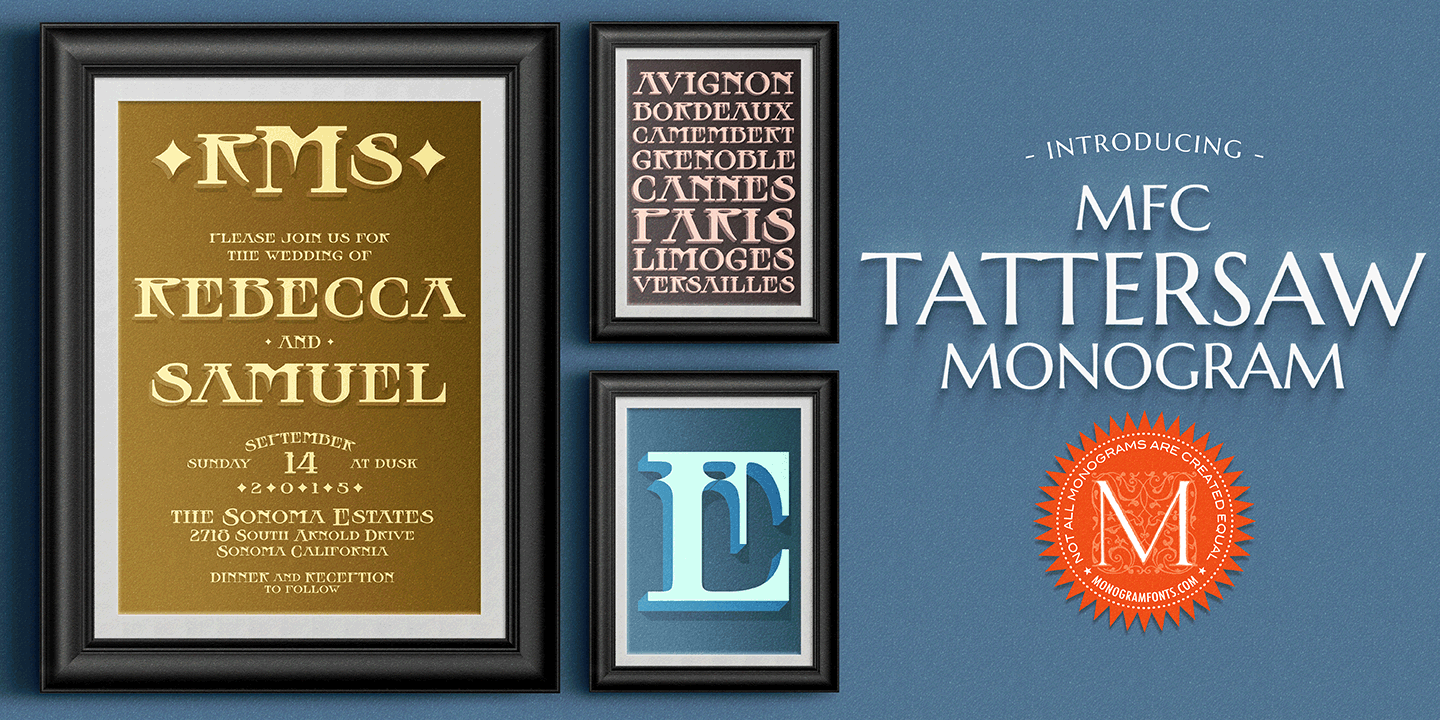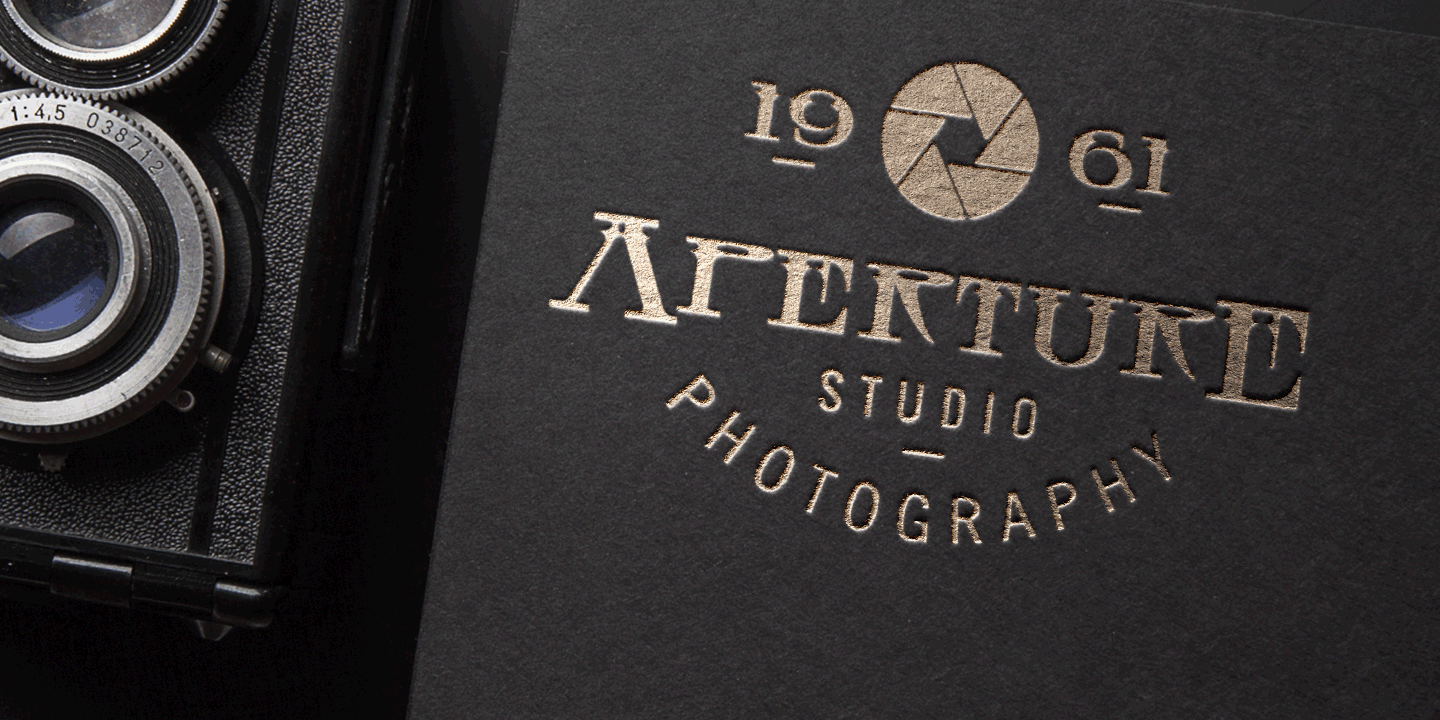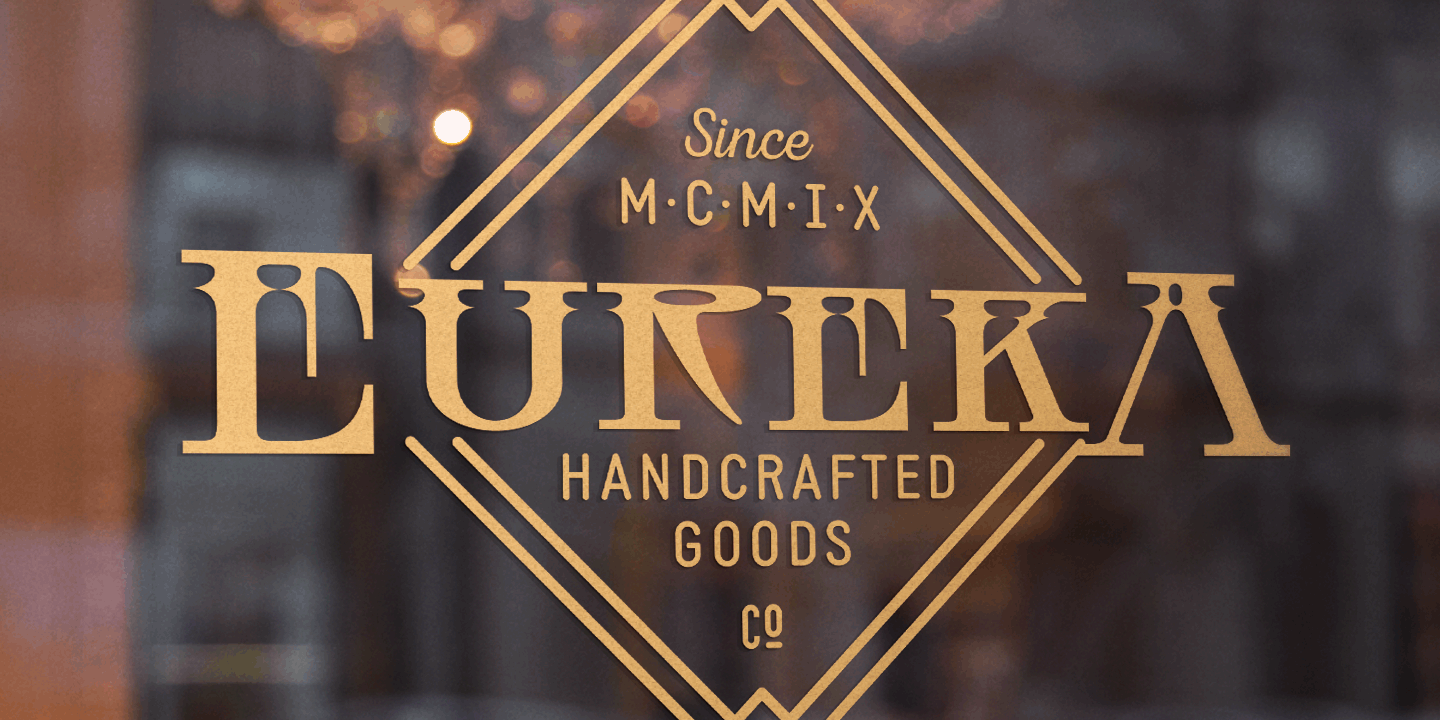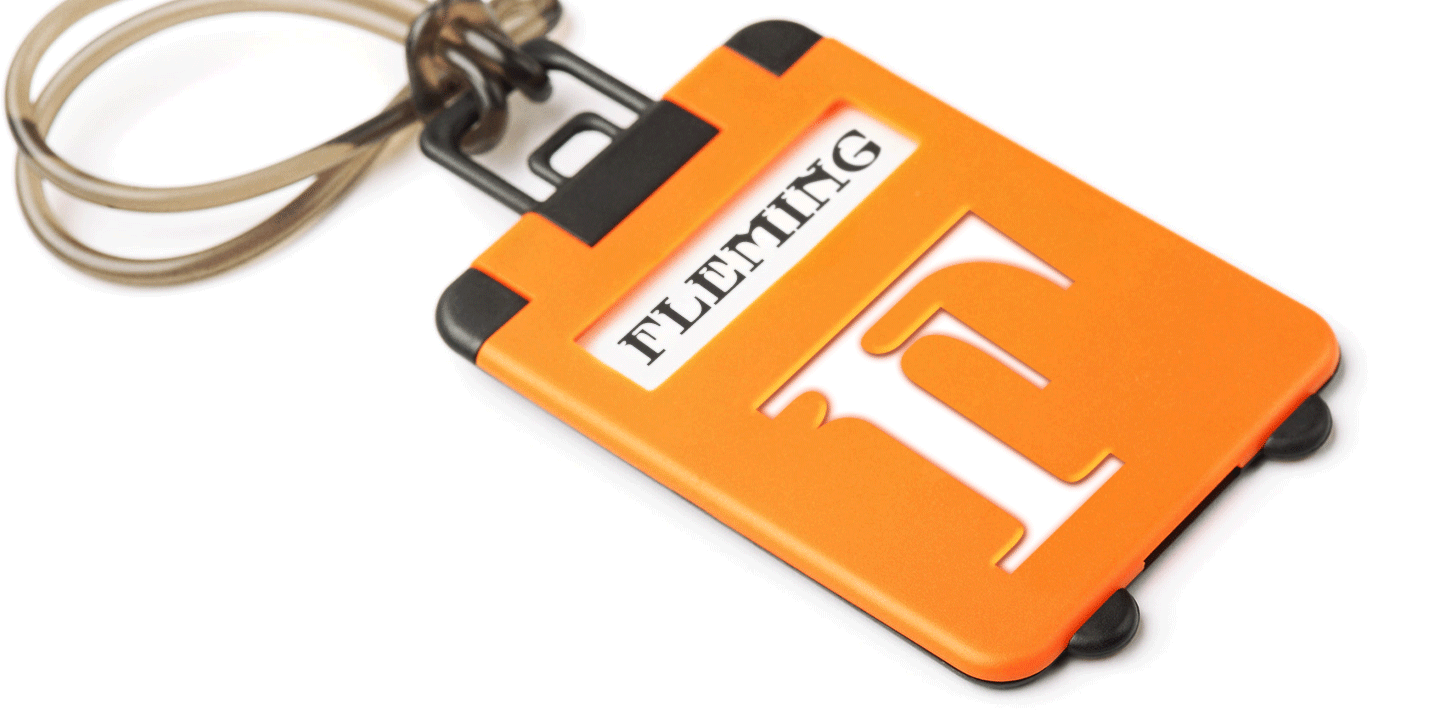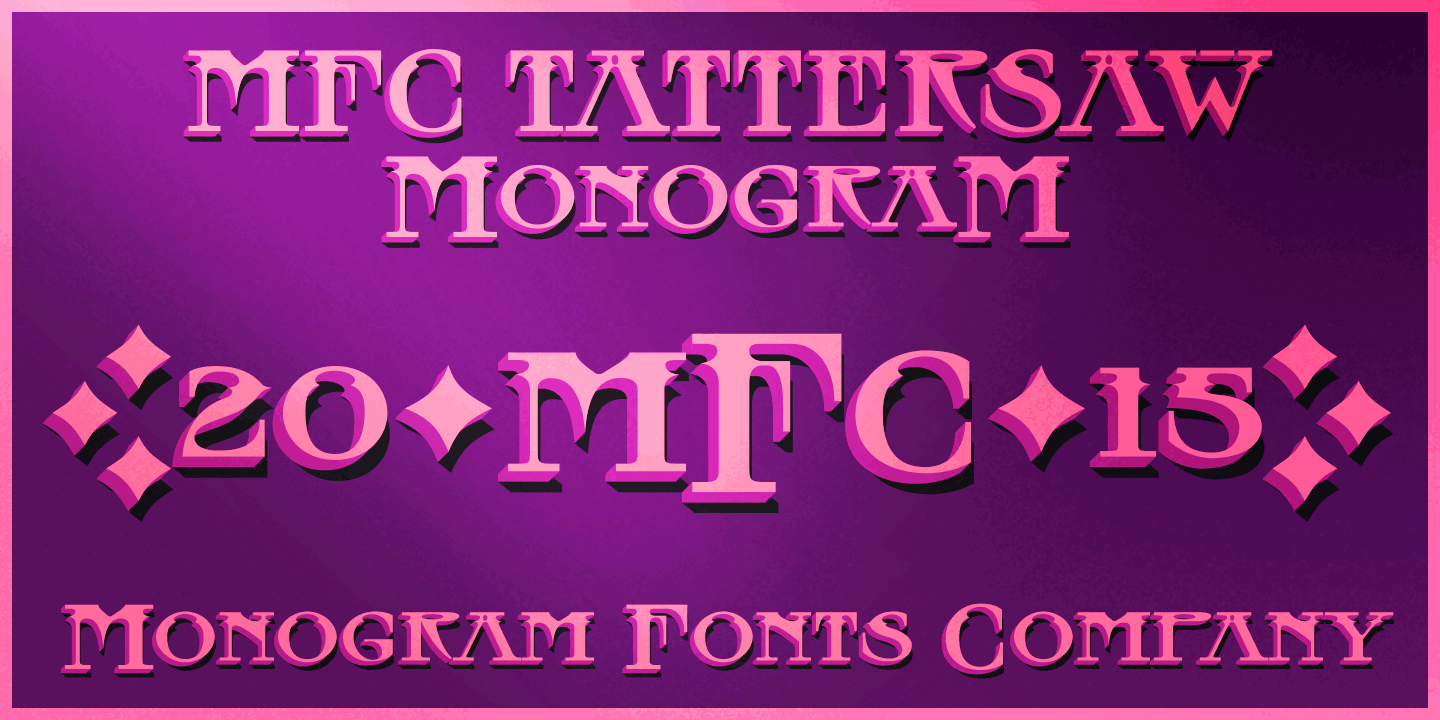
MFC Tattersaw Monogram
Font Family by Monogram Fonts Co
The source of inspiration for MFC Tattersaw Monogram is a specimen from the 1917 ?Strong's Book of Designs?. This popular lettering style has been incorporated into numerous film type foundries of the past, but lacked digital permanence. We've expanded the original All Capitals glyphset to include smallcaps to make monograms, have added numerals and included unique ornamentation for basic titling typesetting.